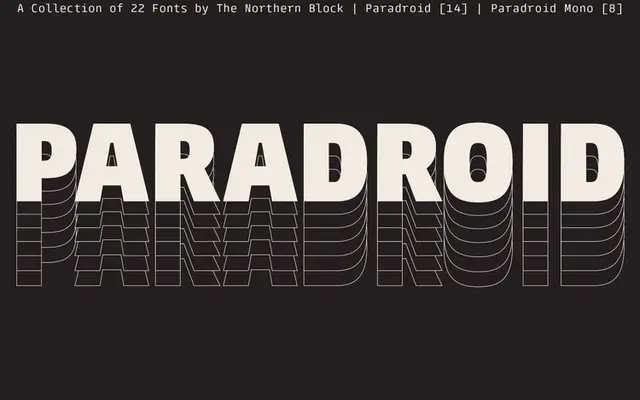
A sans-serif family that blends grotesque and geometric influences, offered in seven proportional weights and four monospaced weights, each with italics.
Sitting between the warmth of a grotesque and the precision of a geometric, Paradroid aims for neutral legibility across a broad range of applications. The family ships with 750 characters per style, alternate lowercase 'a' and 'g', and twelve numeral variations including stylistic zeros. OpenType features cover inferiors, superiors, fractions, case-sensitive punctuation and language support for Western, Southern, Central European and Vietnamese scripts.
Positioned explicitly between grotesque and geometric traditions, Paradroid blends the humanist legibility of grotesque typefaces with the structured, clean forms of geometric design.